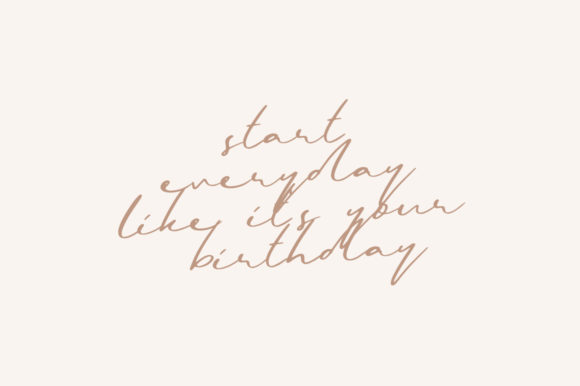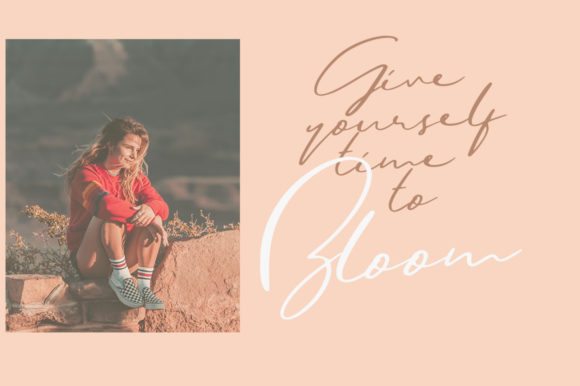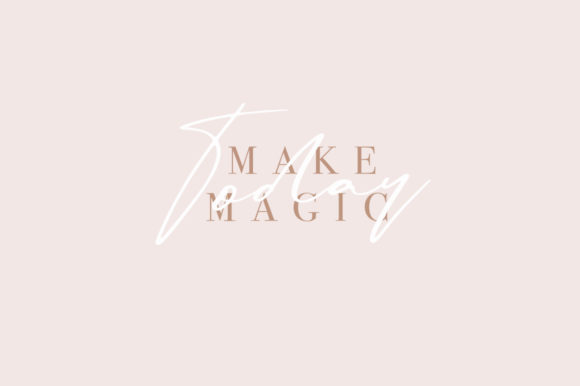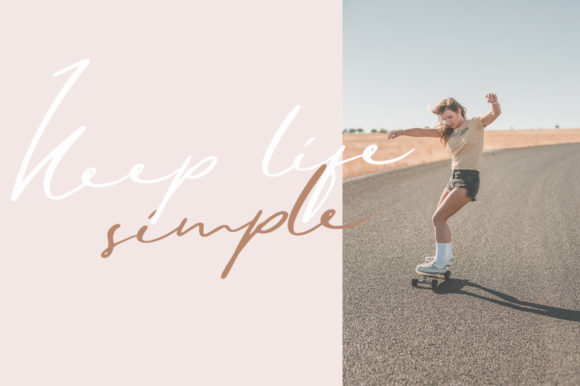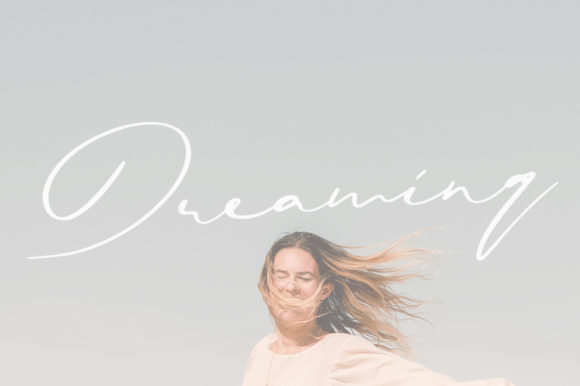
Introducing Handy Font: Elevate Your Designs with Elegance and Calmness
Are you a designer or crafter looking for a font that can add a personal touch to your creations? Look no further than Handy Font, a beautiful handwritten script that exudes elegance and calmness. With its fancy and refined characters, Handy Font is the perfect addition to your design toolkit.
Handwritten fonts have always been a popular choice among designers, and for good reason. They add a touch of personality and warmth to any design, making it more relatable and engaging. Handy Font is no exception, with its unique and elegant handwritten characters that are sure to make your designs stand out.
What Makes Handy Font Special?
So, what sets Handy Font apart from other handwritten fonts? Here are a few features that make it a standout:
• Elegant and Calm: Handy Font has a soothing and refined quality that makes it perfect for designs that require a touch of sophistication.
• Beautiful Handwritten Characters: Each character in Handy Font is carefully crafted to resemble handwritten script, giving your designs a personal and human touch.
• Fancy Script: Handy Font is a script font that adds a touch of luxury and glamour to any design.
• Instant Impact: With Handy Font, you can add a personal touch to your designs in an instant, making it perfect for those who want to create beautiful designs quickly and easily.
Uses for Handy Font
Handy Font is a versatile font that can be used in a variety of design projects, including:
• Wedding Invitations: Add a touch of elegance and sophistication to your wedding invitations with Handy Font.
• Branding and Packaging: Use Handy Font to create beautiful and eye-catching branding and packaging designs.
• Stationery and Cards: Add a personal touch to your stationery and cards with Handy Font’s elegant handwritten script.
• Digital Designs: Handy Font can also be used in digital designs, such as social media graphics, blog posts, and more.
Tips for Using Handy Font
Here are a few tips for getting the most out of Handy Font:
• Use it sparingly: Handy Font is a statement font, so use it sparingly to add emphasis and interest to your designs.
• Pair it with other fonts: Experiment with pairing Handy Font with other fonts to create a unique and visually appealing design.
• Adjust the size and color: Play around with different sizes and colors to find the perfect combination for your design.
In conclusion, Handy Font is a beautiful and elegant handwritten script that can add a personal touch to your designs. With its fancy and refined characters, Handy Font is perfect for designers and crafters who want to create stunning and sophisticated designs. Whether you’re working on a wedding invitation, branding project, or digital design, Handy Font is sure to elevate your work and make it stand out.